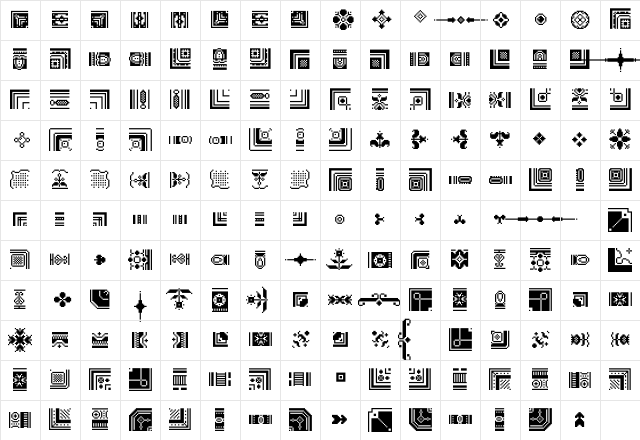
Complete Bit KitOrnaments Regular glyph index. Displaying only characters natively supported by Bit KitOrnaments Regular font.
Bit KitOrnaments is built around its visual character rather than neutral utility - its distinctive forms are designed to make an impression at display sizes.
Font Pairing: Pair with a clean neutral sans-serif for body copy to let Bit KitOrnaments's character lead without overwhelming the composition.
Pro Tip: Use Bit KitOrnaments exclusively at display sizes - it was designed to be seen, not read at length. Let a neutral companion handle body copy.